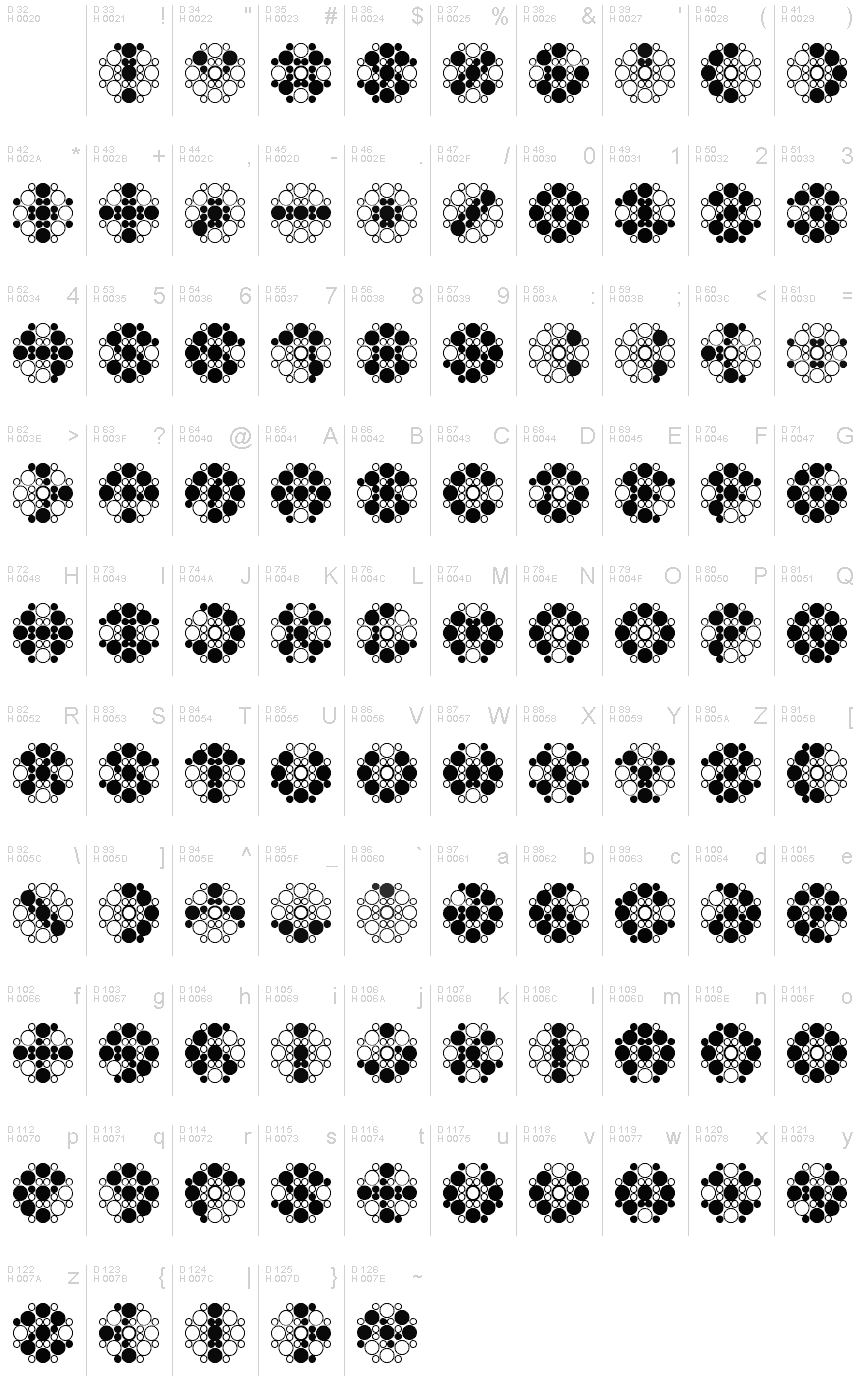
Nirvanite Regular
Designer description: Experimental mosaic... or maybe a new mineral species?
This one achieves a new visual effect at almost every size up to the original. Also try slowly moving the zoom slider for some interesting animations!